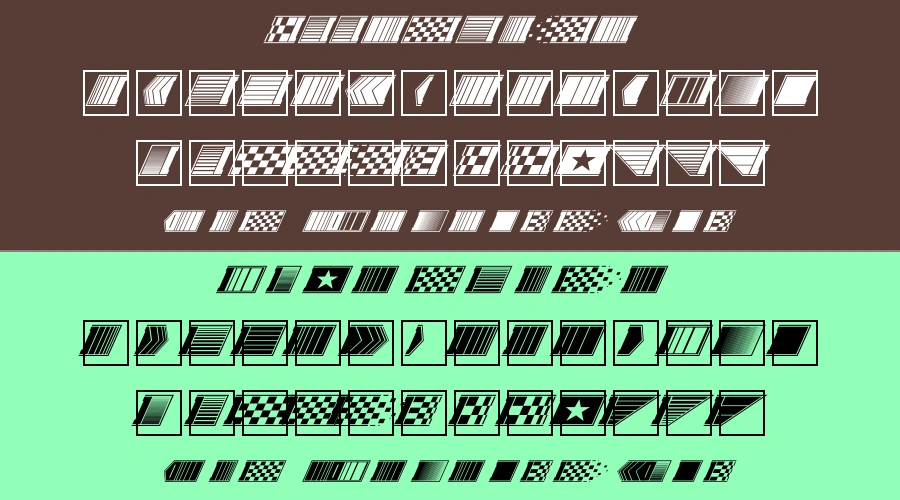
About Gear6 Elements Font
Gear6 Elements Font stands out for its distinctive combination of sharp edges and visual rhythm. Ideal for brand identities, it provides the durability and system compatibility that professional projects demand. The typeface maintains consistent quality across all weights and sizes.
Key features include refined monoline strokes and practical traditional figures, enhancing typographic expression. In creative titles applications, Gear6 Elements Font demonstrates exceptional small cap rendering. The stroke contrast and artistic merit contribute to its distinctive character and professional appeal.